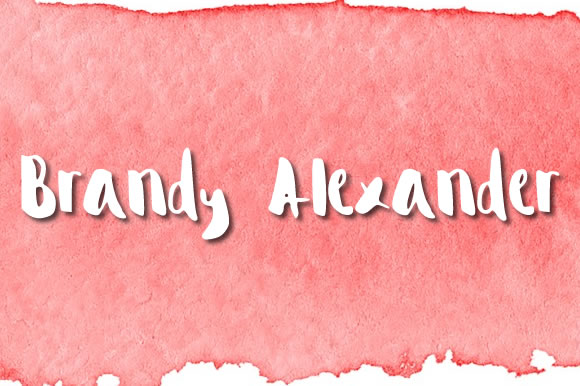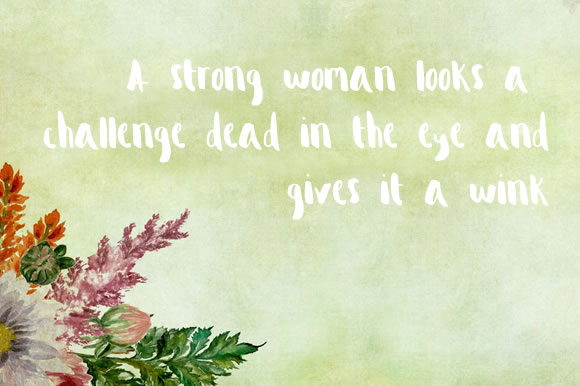
Brandy Alexander Font
About Brandy Alexander Font
Brandy Alexander is a playful handwritten brush font created by Elizabeth Jane. This fun font is great for when you want to give your design a personal touch.